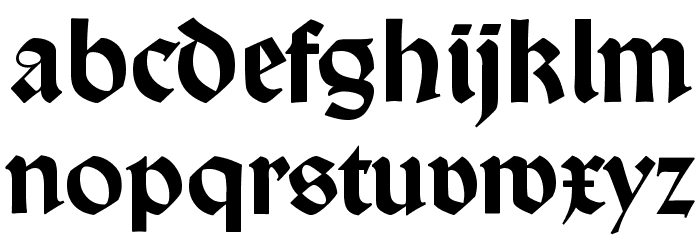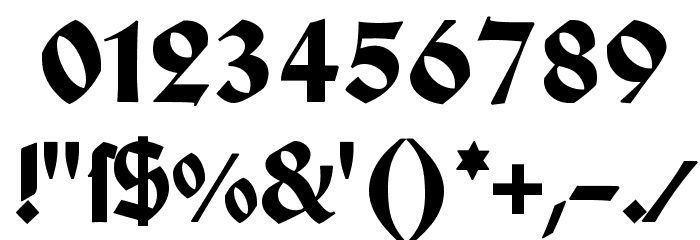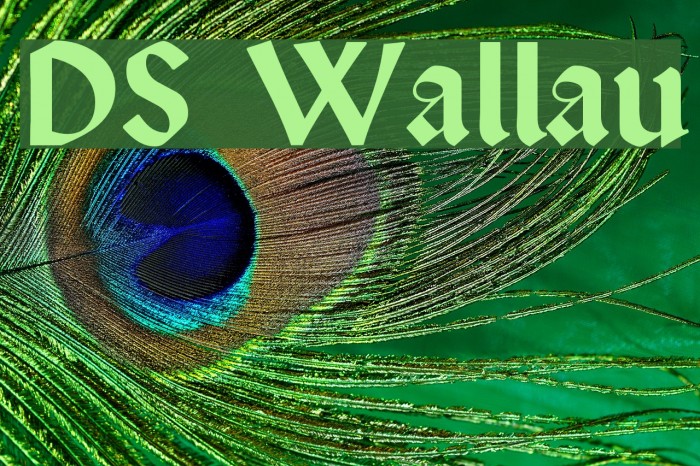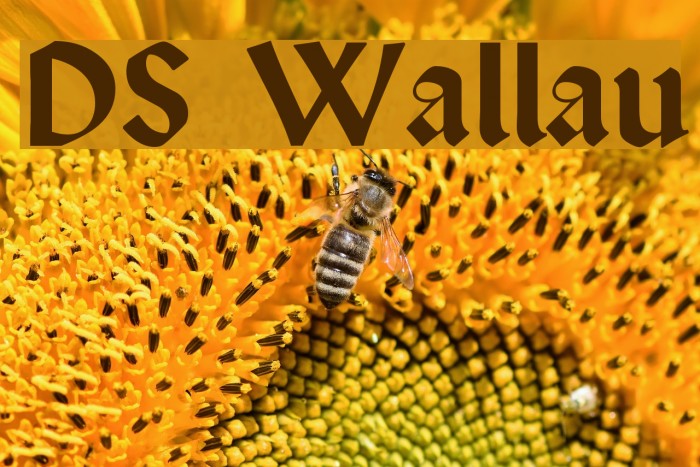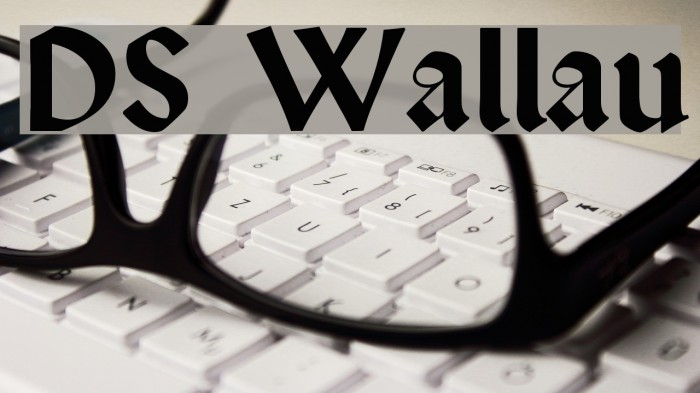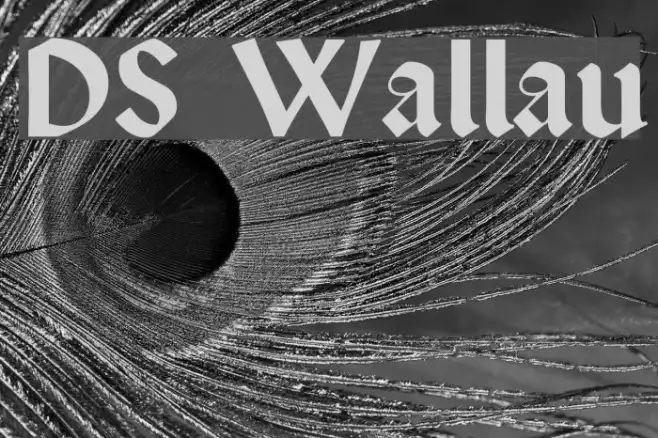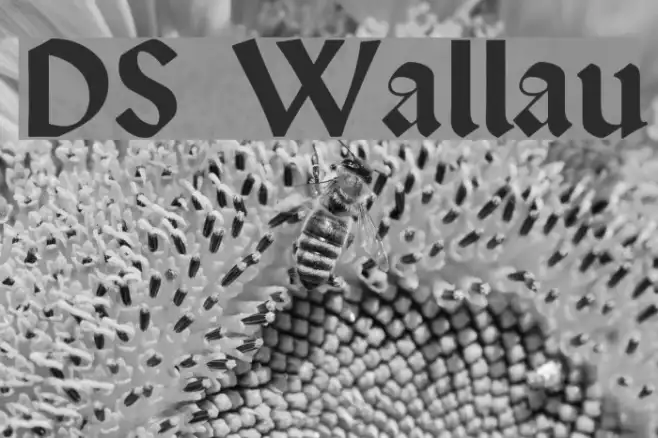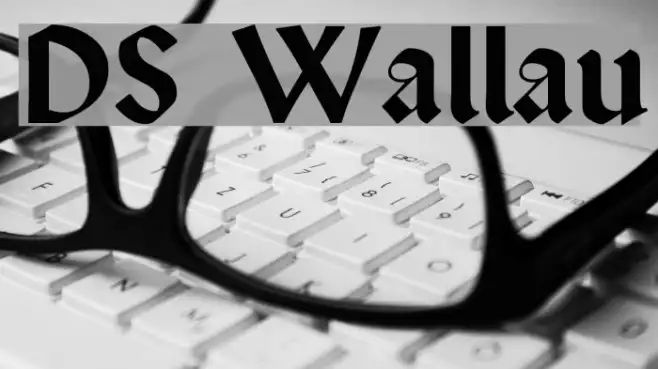
DS Wallau Font
This font exhibits a bold and striking blackletter style, characterized by its sharp, angular lines and dramatic serifs. The uppercase letters are particularly commanding, with strong vertical strokes and pointed edges that convey a sense of authority and tradition. The lowercase letters maintain the same angularity but are slightly more compact, providing a balanced contrast to the uppercase. Numerals are consistent with the overall style, featuring the same bold strokes and angular forms. Special characters are designed to match the font's distinctive aesthetic, ensuring a cohesive look across all text elements. This font is reminiscent of medieval script, making it ideal for projects that require a historical or formal touch.
A bold blackletter font with sharp, angular lines and dramatic serifs.
- Proposed Projects: Ideal for historical documents, formal invitations, branding for traditional products, or any project seeking a medieval or gothic aesthetic.
- Category: Blackletter
- Overall Style: Vintage
- Use Case: Headlines, Logos, Decorative text